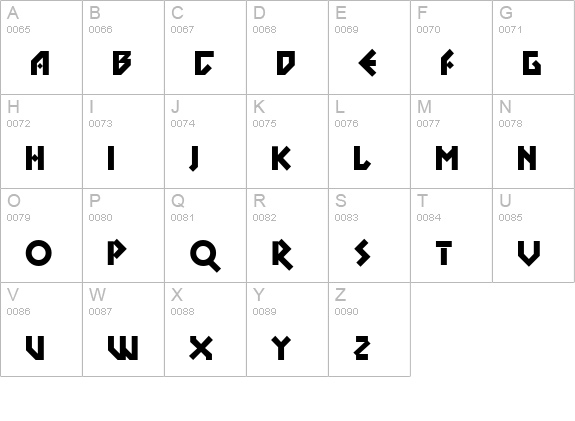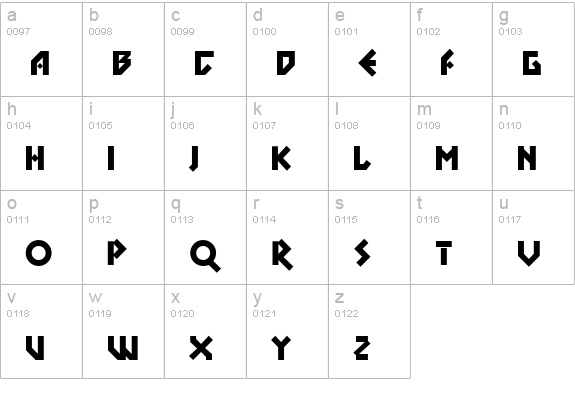
Elbrus Font Details
Elbrus font is a striking and versatile typeface that effortlessly combines classic elegance with a modern twist. Its clean lines and graceful curves make it perfect for a wide range of design projects, from branding to editorial design. The Elbrus font exudes sophistication and professionalism, making it a go-to choice for designers looking to elevate their work. What sets Elbrus font apart is not just its timeless aesthetic, but also the fact that it is available for free download at FontsMarket.com. This means that you can easily access this high-quality font without any cost, making it a valuable resource for both professional designers and hobbyists alike. Whether you're working on a corporate identity, a website design, or a personal project, Elbrus font is sure to add a touch of refinement and style to your work. Download it today and elevate your designs with the elegance of Elbrus font.